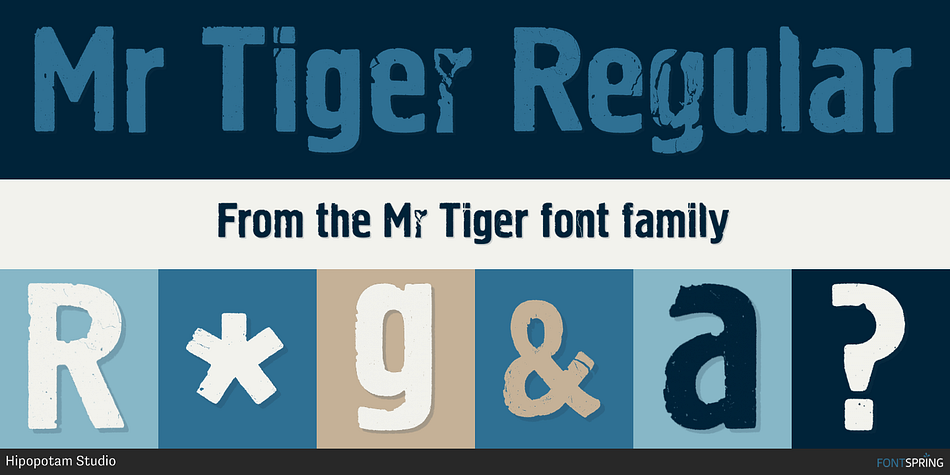
Mr Tiger Regular
Mr Tiger is a grunge font published by Hipopotam Studio.
After the success of our best selling Mr Black we
After the success of our best selling Mr Black we’ve decided to once more use my grandfather’s dry transfer lettering sheets. My grandfather was a polish military cartographer and he left us some used up sheets. The letters didn’t transfer so well but we liked the way they were damaged.
Mr Tiger has upper and lowercase characters with up to four alternate glyphs. The first three variations are only slightly damaged but the fourth one is usually more distorted. All of the glyphs have a very high resolution so they can be used in a large scale and they will still look great.
One of the best things in Mr Tiger is the OpenType Contextual Alternates feature. It will automatically set alternate glyphs depending on frequency of appearance of the same character. The script doesn’t throw random glyphs. For example in the word “HIPPOPOTAMUS” you will automatically get three different “P” glyphs and two “O” glyphs. It really works great but of course you can always fine tune it by hand.